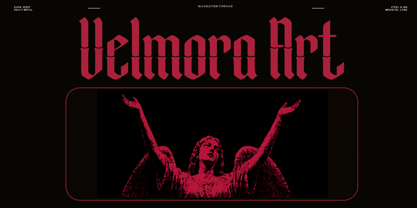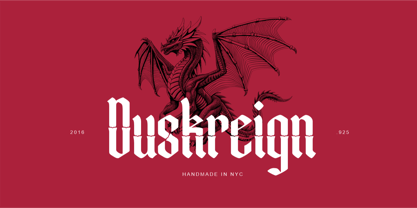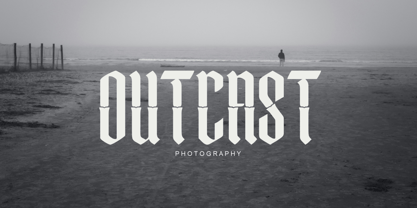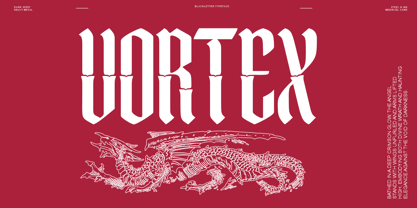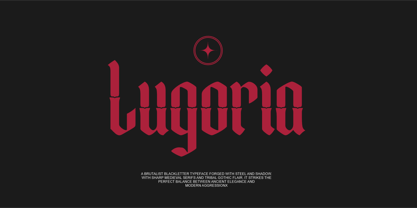
Ravencrest
Ravencrest is a bold blackletter display typeface forged from medieval heritage and modern rebellion. Inspired by ancient manuscripts, gothic armor, heraldic emblems, and the raw energy of heavy metal culture, this font commands attention with its sharp angular forms, dramatic strokes, and unmistakable presence.
Designed for creators who seek power, mystery, and authority, Ravencrest balances traditional Gothic craftsmanship with contemporary readability. Every character is carefully crafted to evoke the atmosphere of forgotten kingdoms, dark fantasy worlds, epic battles, and legendary tales.
Its striking blackletter construction makes it ideal for branding, album covers, apparel design, gaming projects, fantasy book titles, tattoo-inspired artwork, logos, posters, merchandise, packaging, and medieval-themed visual identities.
Whether you're creating a dark fantasy brand, a metal band logo, a gothic poster, or a medieval-inspired design, Ravencrest delivers an authentic blackletter aesthetic with a refined modern edge.
• Stylistic Blackletter Design